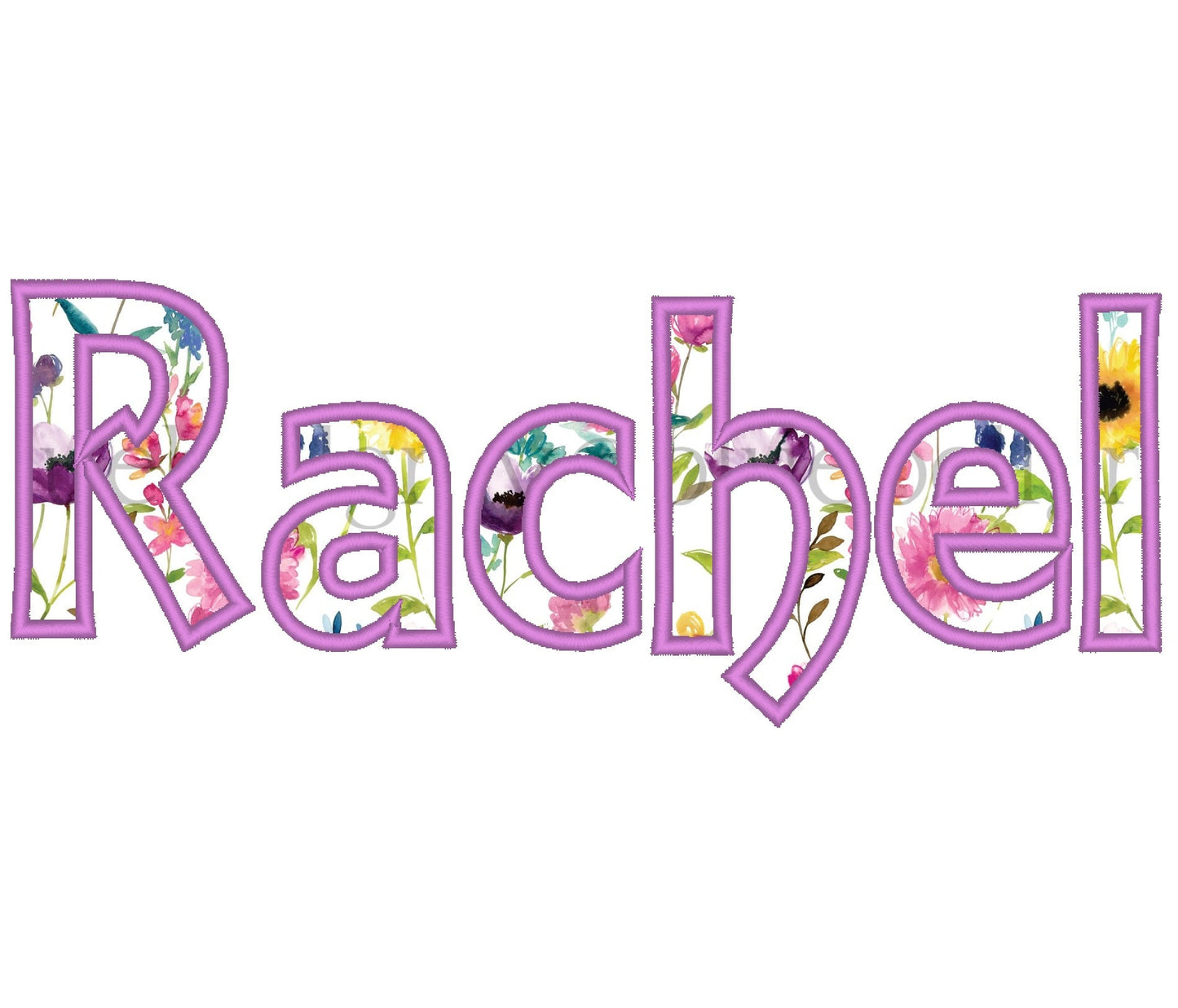
Rachel Monogram Font Applique
Or click to open the linkA classic monogram applique font. Lovely for monograms and names on pillows, towels, tote bags and baby gifts.
Uppercase and lowercase letters, numbers 0 to 9 and punctuation, in seven sizes: 1.8, 2.2, 2.6, 3.2, 3.6, 4.2 and 5 inches. Applique letters with a neat satin edge.
- Rachel monogram applique font
- Uppercase, lowercase, numbers 0 to 9, punctuation